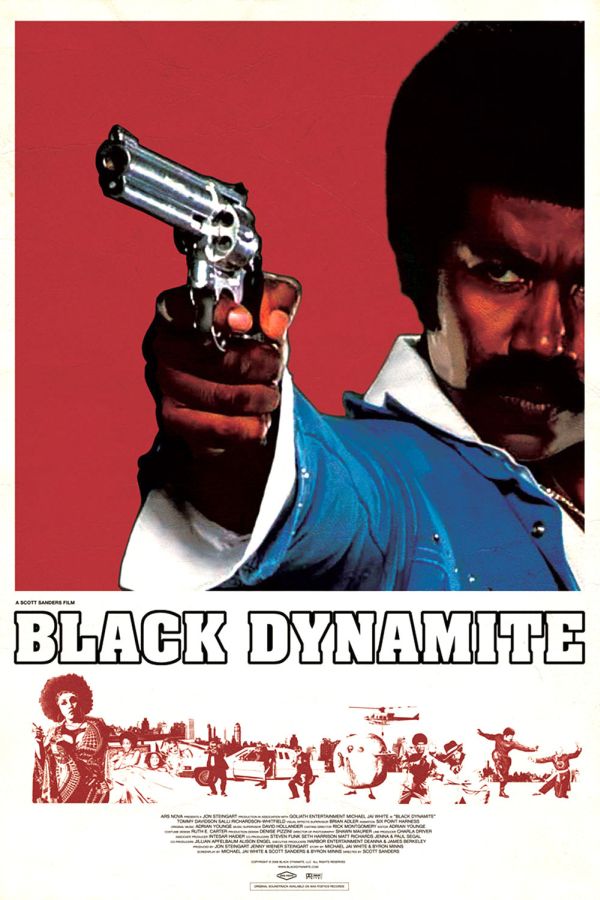
Black Dynamite Font
ActionBlack Dynamite is a 2009 American action comedy movie that centers on a former CIA agent Black Dynamite, who must exact revenge for the death of his brother while clearing the streets of a new drug that is wreaking havoc on the neighborhood.
The font used for the Black Dynamite title in the poster is Aachen Bold, a heavy Egyptian typeface by Colin Brignall. You can view more details about it here.